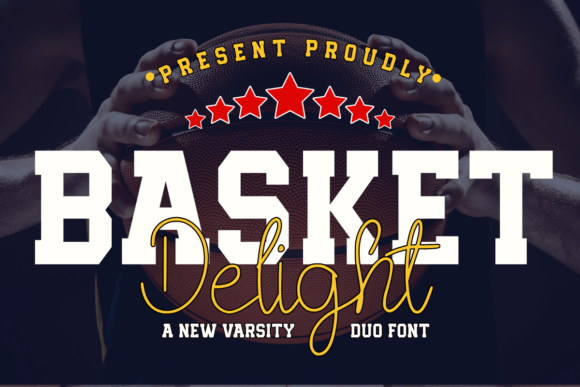
Basket Delight Font Review for Editorial Layouts
Last Tuesday, while finalizing the cover layout for a seasonal campus lifestyle guide, I found myself staring at a blank title block that felt entirely too sterile. The project required a typeface that could bridge the gap between academic tradition and modern creative energy, which is exactly when I decided to test Basket Delight in a real editorial workflow. Although often categorized broadly within Slab Serif collections due to its sturdy presence, this specific typeface offers a unique hybrid personality that distinguishes it from standard collegiate Fonts. It was not merely about finding a decorative header; it was about solving a visual communication problem where the typography needed to carry the weight of the publication’s identity while remaining approachable for a digital-first audience.
Basket Delight for Varsity Style Blog Headers and Titles
When integrating Basket Delight into digital publishing environments, the font combination proves exceptionally effective for establishing immediate thematic context in blog headers and article titles. The Basket Delight font combination is a sporty varsity and college style font, with a combination of handwritten monoline script, created to brand any professional project, such as a logo type, title, and this duality is precisely what makes it work so well in web design. In my recent layout test for an alumni feature series, the primary display text utilized the bold varsity component to anchor the page, while the secondary subtitle employed the monoline script to add a layer of personal narrative. This contrast prevents the design from feeling like a generic sports banner and instead positions it as a curated editorial piece. For bloggers and content creators, this means you can achieve a cohesive brand identity without needing to purchase separate premium font families for display and accent text. The readability on screen remains high because the letterforms are distinct and open, avoiding the cluttered appearance that some novelty collegiate fonts suffer from at smaller digital sizes.
Using Basket Delight in Recipe Ebooks and Printable Guides
Designing structured documents like recipe ebooks or coaching workbooks requires a delicate balance between personality and utility, and Basket Delight serves as a powerful tool for section dividers and chapter openers in these formats. While reviewing the typeface for a printable meal planning guide, I observed that the handwritten monoline script element provides a necessary human touch that softens the rigid grid systems typical of functional PDFs. However, it is crucial to understand where this typeface excels and where it should step back; Basket Delight is ideal for large-format labeling and decorative titling but should never be used for dense instructional body copy or ingredient lists. In my workbook layout, I paired the varsity weight for main chapter numbers with a clean, neutral sans serif for the actual recipes to ensure maximum legibility during cooking or study sessions. This strategic use of Basket Delight creates a visual rhythm that guides the reader through the content hierarchy without causing cognitive fatigue. For creators selling digital downloads or course materials, this font adds perceived value and professional polish to what might otherwise look like a standard document template.
Basket Delight Font Pairing Strategies for Editorial Readability
Achieving professional editorial standards requires thoughtful font pairing, and Basket Delight demands specific companions to maintain visual harmony across complex layouts. Because the typeface carries significant visual weight and distinctive character traits, it performs best when anchored by understated, highly readable text faces rather than competing display fonts. During the redesign of a quarterly digital magazine, I found that pairing Basket Delight with a classic transitional serif for body text created a sophisticated tension between the sporty header and the literary content. Alternatively, for more modern or tech-adjacent publications, a geometric sans serif works beautifully to ground the whimsical nature of the monoline script. It is important to avoid pairing this font with other handwritten or decorative typefaces, as the result often becomes visually noisy and difficult to parse. The goal in editorial design is always to support the content, and Basket Delight acts as the charismatic host that introduces the story, while your chosen body font ensures the guest stays comfortable for the entire conversation. This approach maintains the integrity of the publication while leveraging the unique branding potential of the typeface.
Ultimately, incorporating Basket Delight into your design arsenal offers a refreshing alternative to overused collegiate tropes, providing a versatile solution for brands that want to evoke nostalgia without sacrificing modern clarity. Whether you are crafting a wedding guide that needs a playful yet structured tone, designing a university department newsletter, or building a personal brand identity that values heritage and craftsmanship, this typeface delivers on its promise. The key to success lies in restraint and intentionality; let the varsity elements shout the headlines and allow the monoline script to whisper the nuances, all while keeping your body copy neutral and accessible. By treating Basket Delight as a specialized editorial instrument rather than a generic decorative overlay, you elevate your content from simple information delivery to a memorable visual experience that resonates deeply with your target audience. It is a testament to how thoughtful typography can transform a standard layout into a branded moment that feels both authentic and professionally executed.